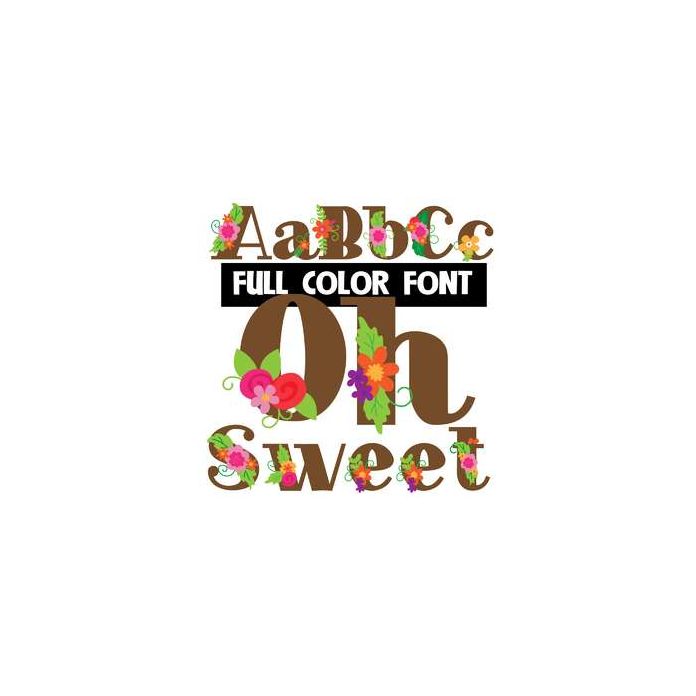
This full-color font features brown letters with beautiful floral arrangements. This font works best for titles, displays, posters and more. Please note color fonts will show as black in non compatible programs. This font type is compatible with Silhouette Studio.